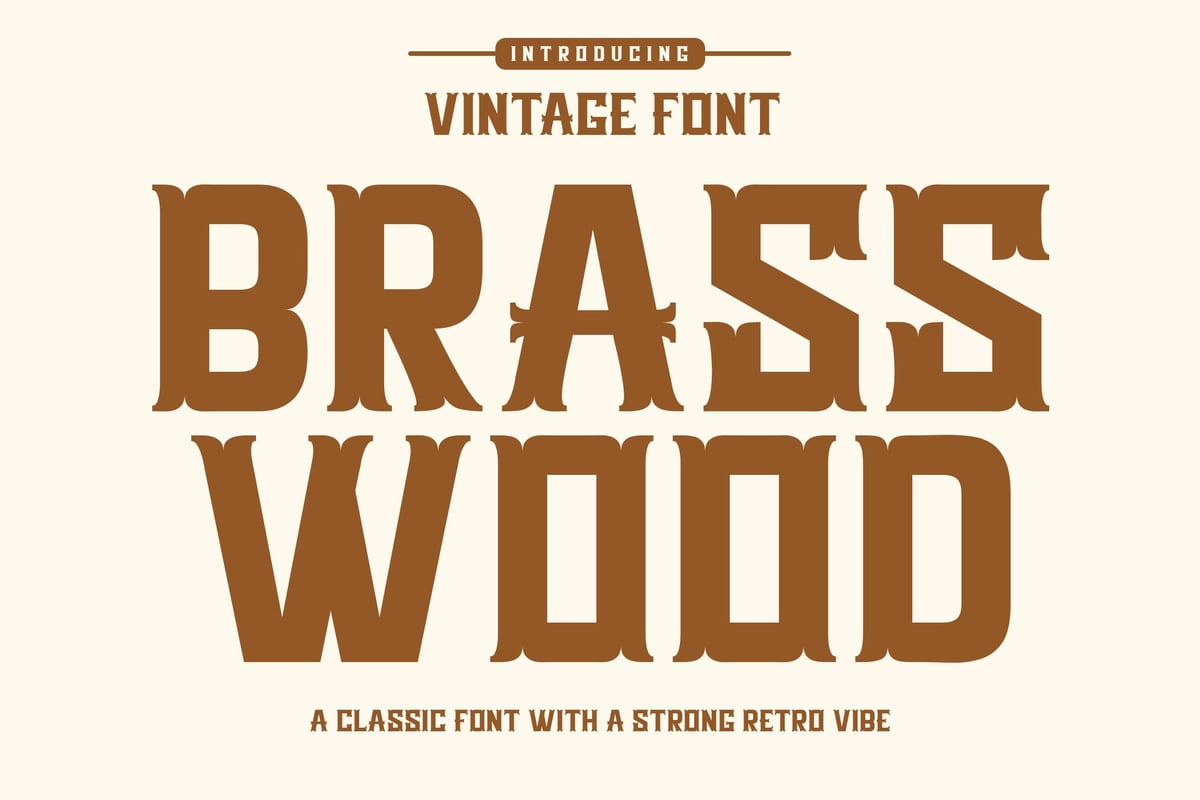
Brasswood – Vintage Display Serif Typeface
Bold, rugged, and dripping with heritage — Brasswood is the vintage display serif built for brands that mean business.
Brasswood is a vintage-inspired display serif typeface featuring strong, bold letterforms with classic detailing and sharp serifs. Designed for headlines, branding, packaging, signage, posters, and editorial layouts, it delivers a confident retro character without sacrificing readability. Wide letter spacing and sturdy proportions make it a natural fit for identity systems rooted in classic, heritage, or Americana aesthetics.
- Ligatures and stylistic alternates
The character set includes uppercase and lowercase letters, numerals, punctuation, and multilingual support — making it a versatile choice for a wide range of creative projects.